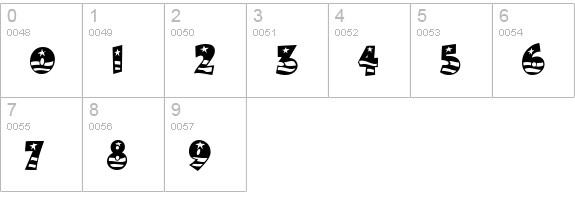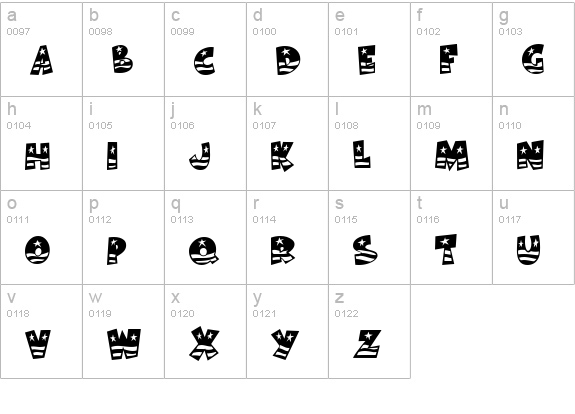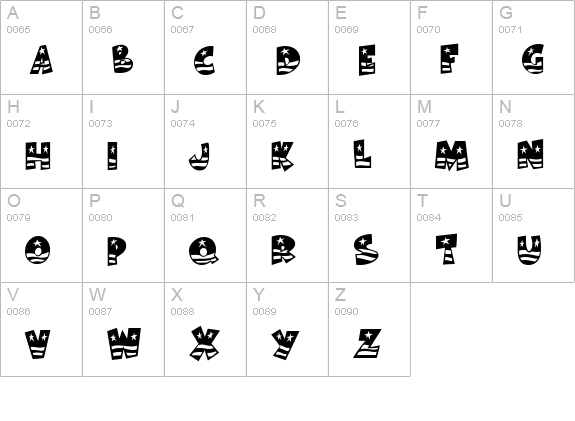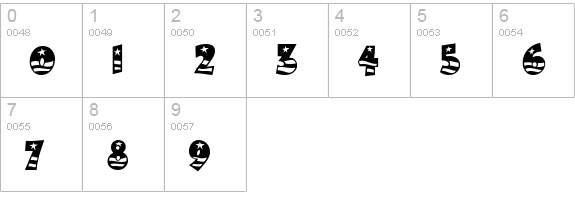
Bodie MF Flag Font Details
Bodie MF Flag font is a bold and striking typeface that commands attention with its unique design. Inspired by traditional flag typography, this font features strong, clean lines and a distinct style that is perfect for making a statement. Its uppercase letters exude power and authority, while the lowercase letters add a touch of modernity and sophistication. What sets Bodie MF Flag font apart is its versatility - it can be used for a wide range of design projects, from branding to posters to social media graphics. Whether you're looking to create a striking headline or a bold logo, this font will not disappoint. And the best part? Bodie MF Flag font is completely free to download at FontsMarket.com. So go ahead and add this powerful and eye-catching font to your collection today!